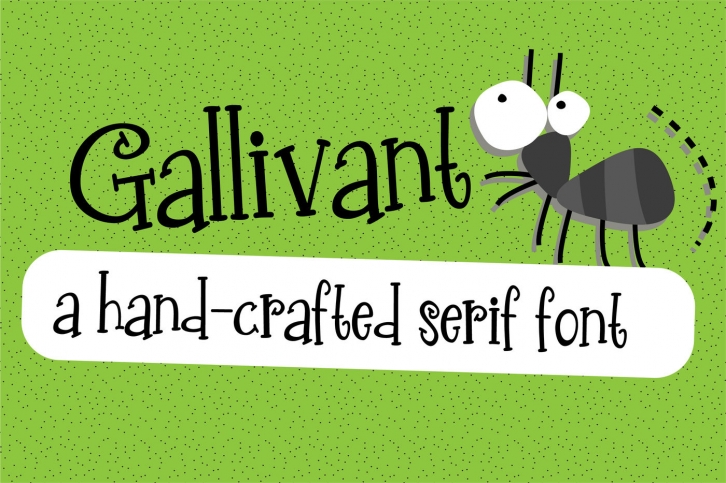
This casual handwritten serif font has a youthful feel to it. Check out her sister sans serif font: PN Gallihopper. Font includes:
• Numbers and Symbols
• International Characters